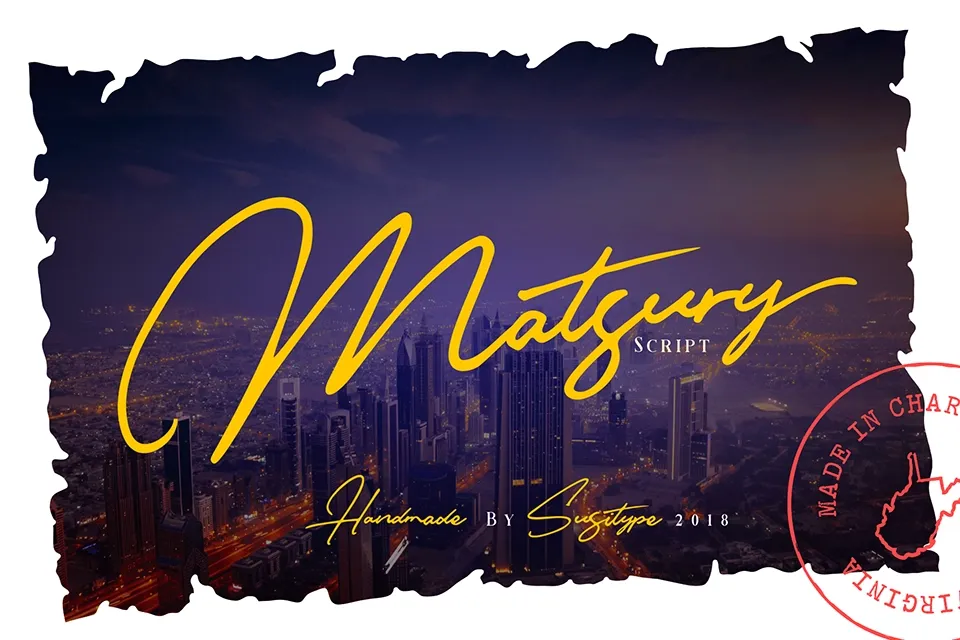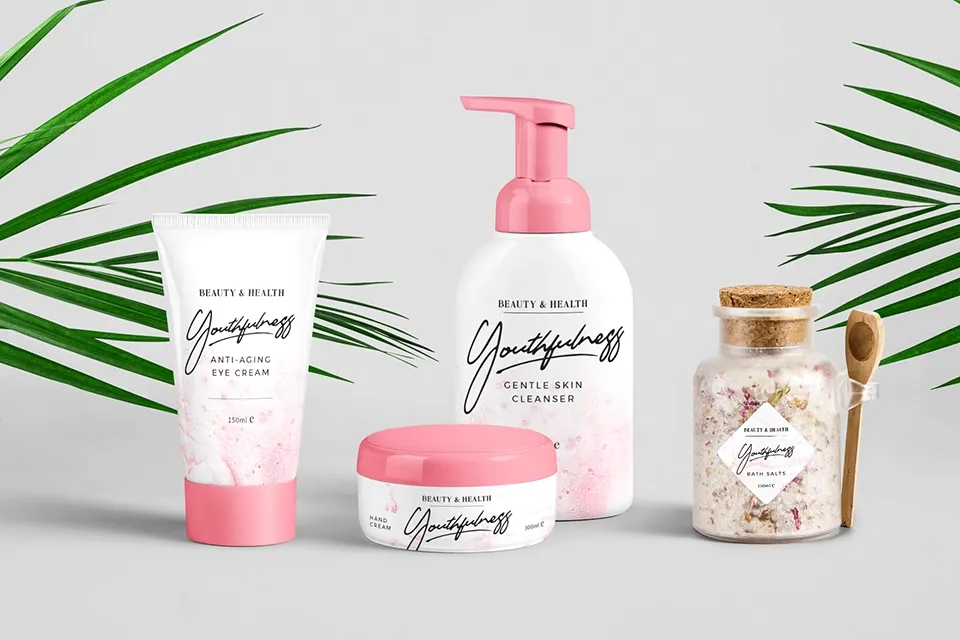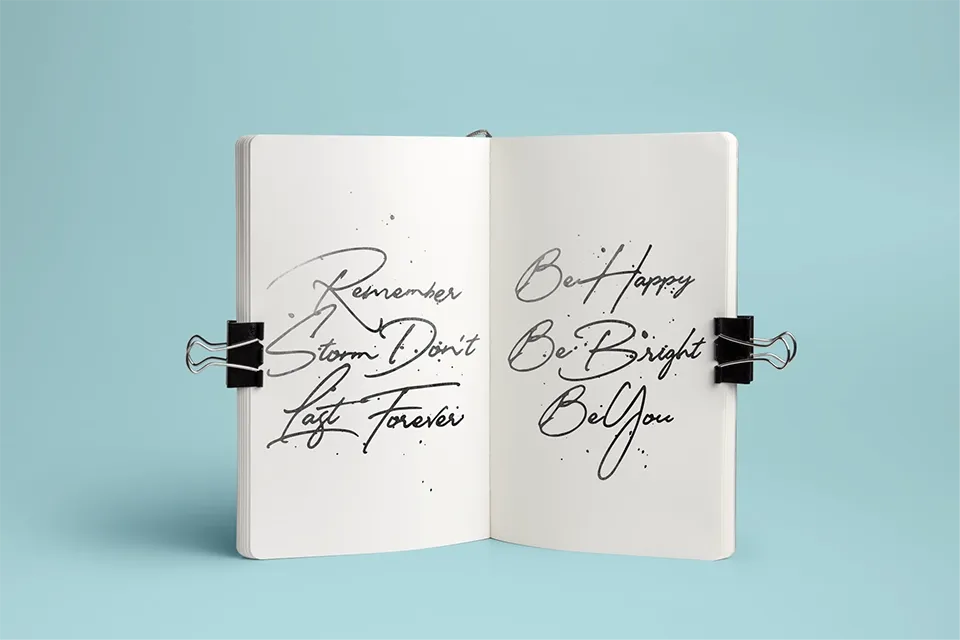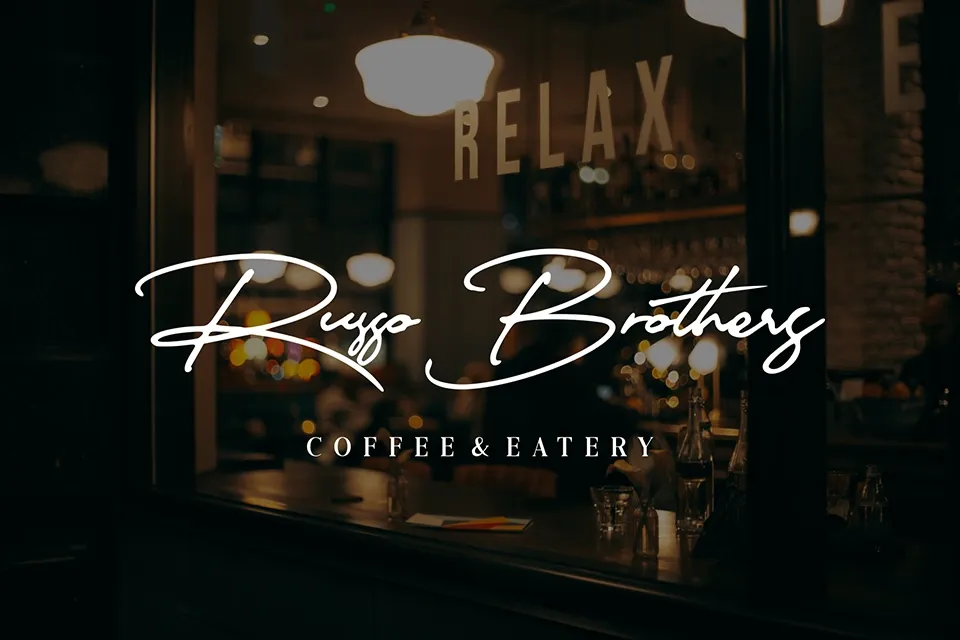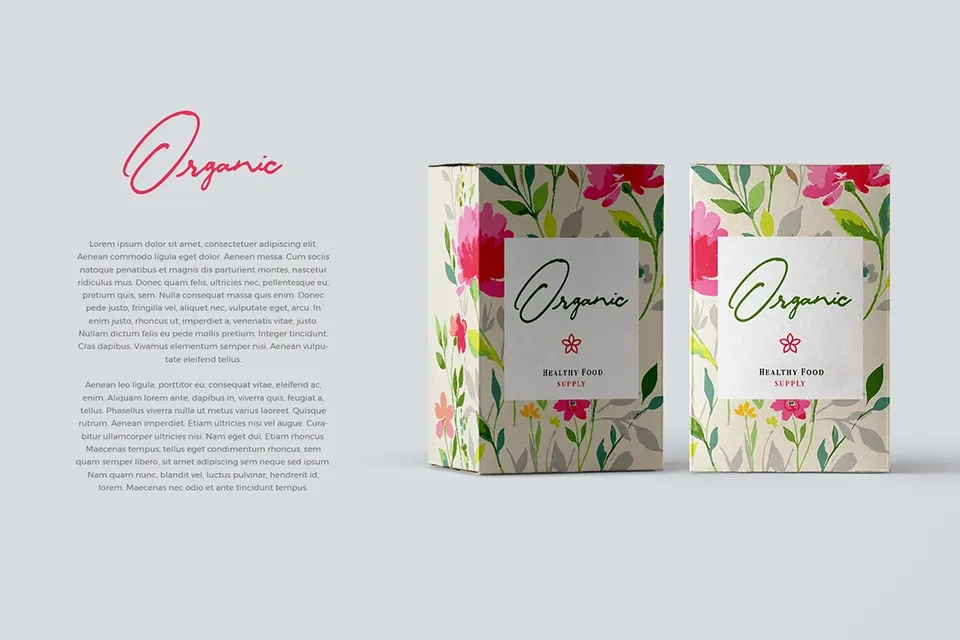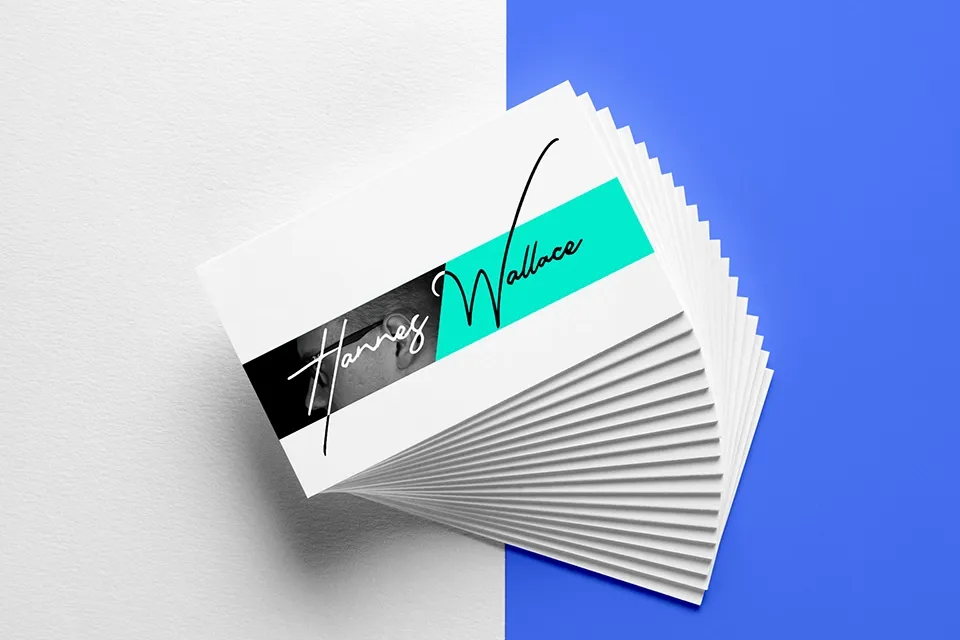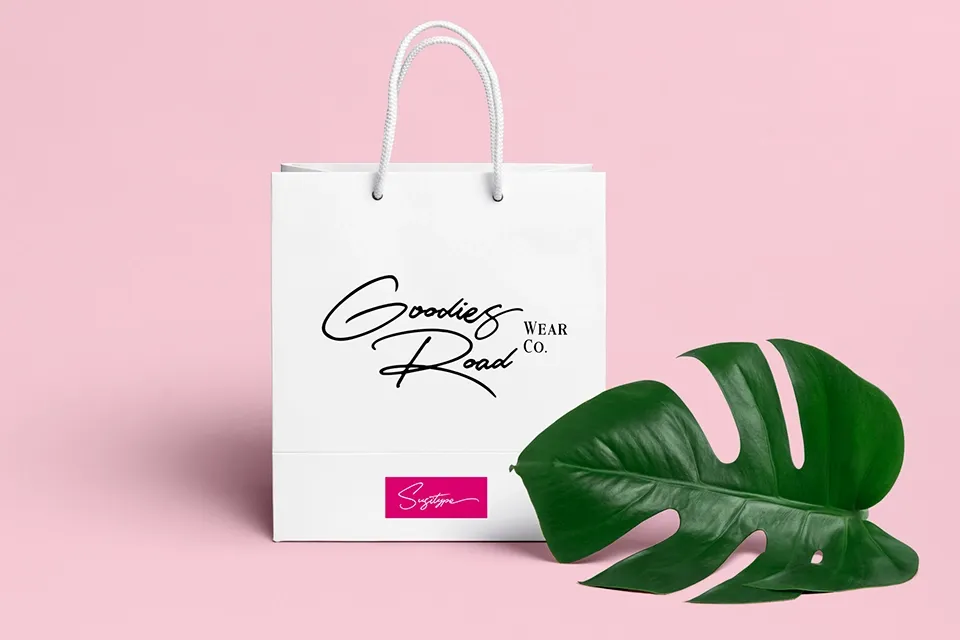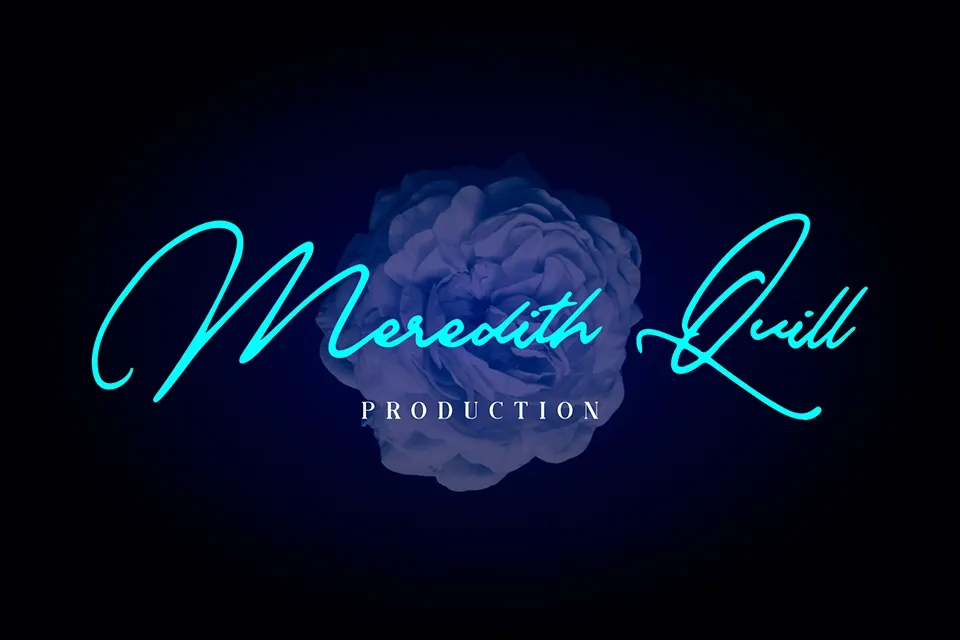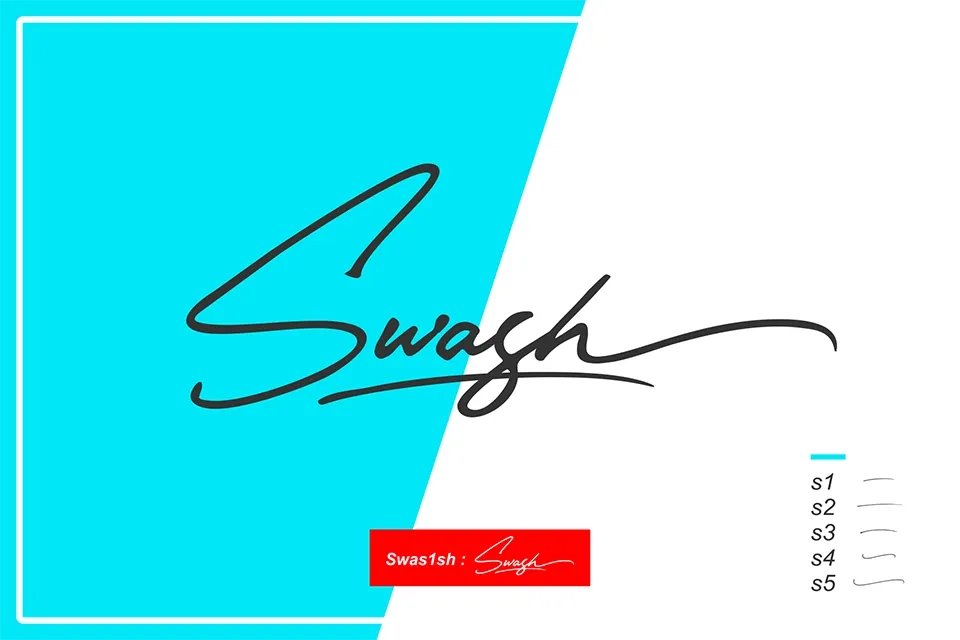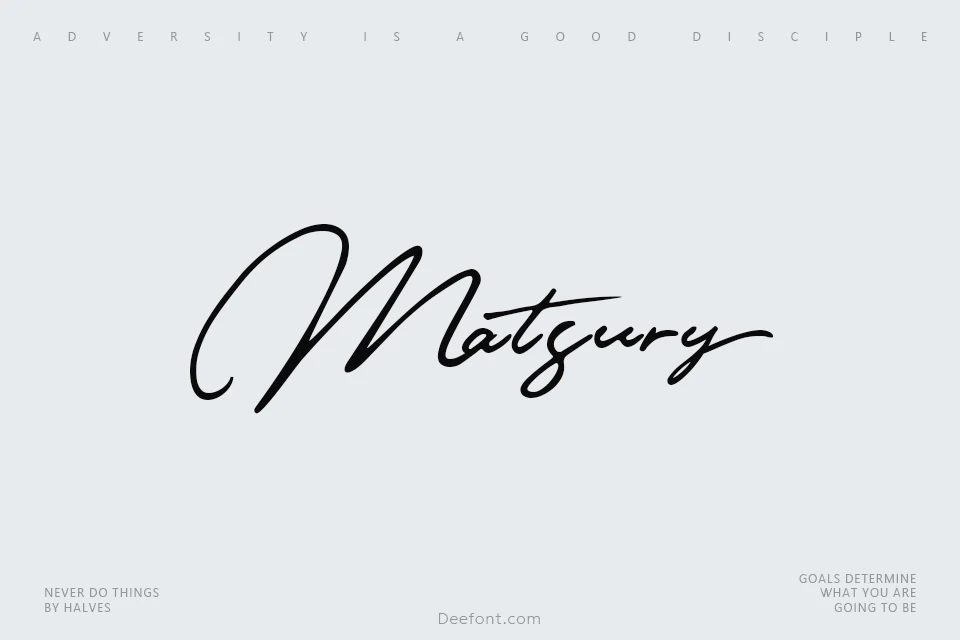
Matsury Font
Matsury is an elegant signature script font, crafted entirely by hand to evoke an organic feel. Its flowing, cursive style features elongated strokes, giving it a natural and personal touch. Perfect for creative projects, Matsury adds a sophisticated yet authentic handwritten element to designs. Its smooth, connected letters make it ideal for projects requiring a personal and stylish aesthetic, such as logos, invitations, and artistic expressions. Developed by SusiType, Matsury is a versatile choice for enhancing the visual appeal of any design project.